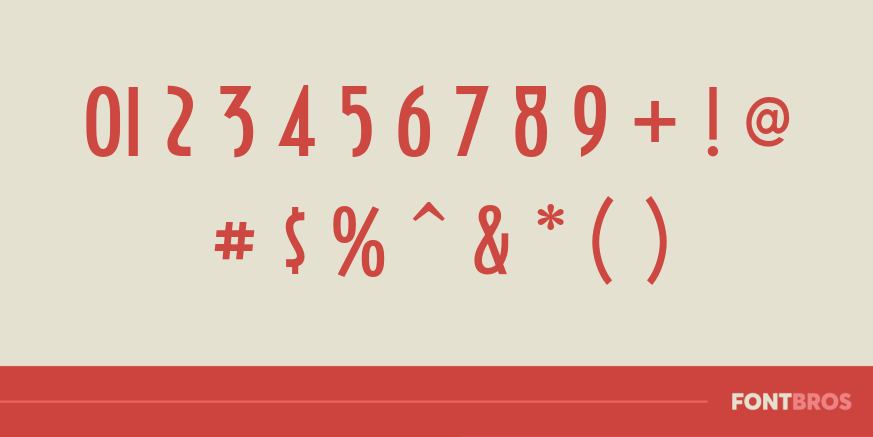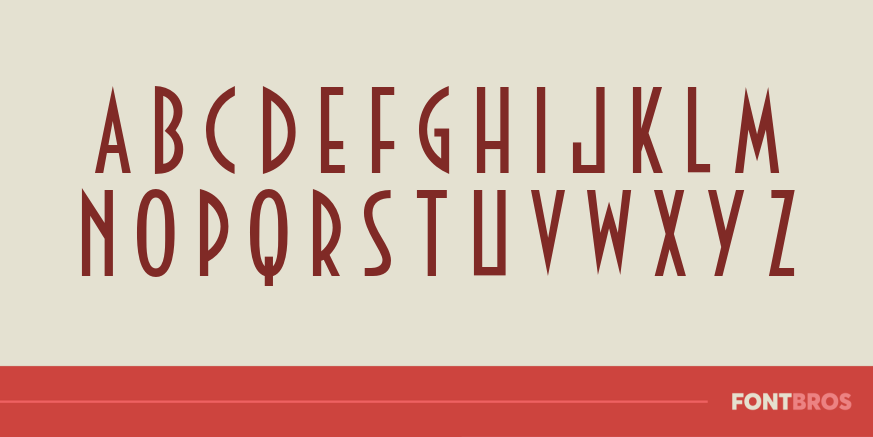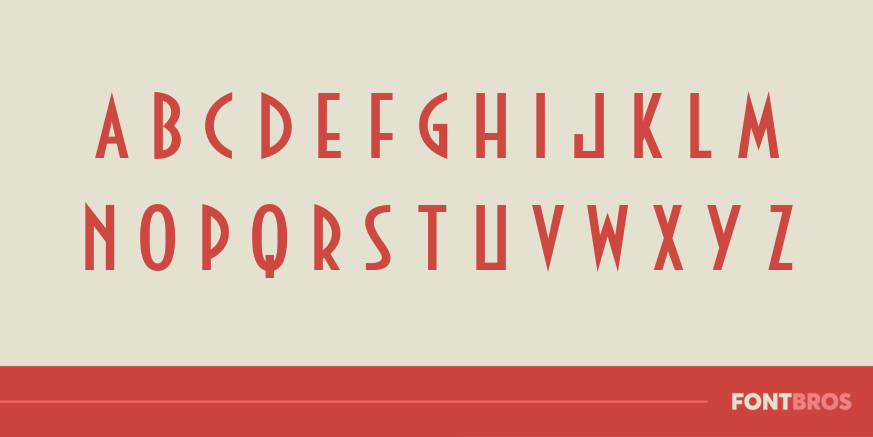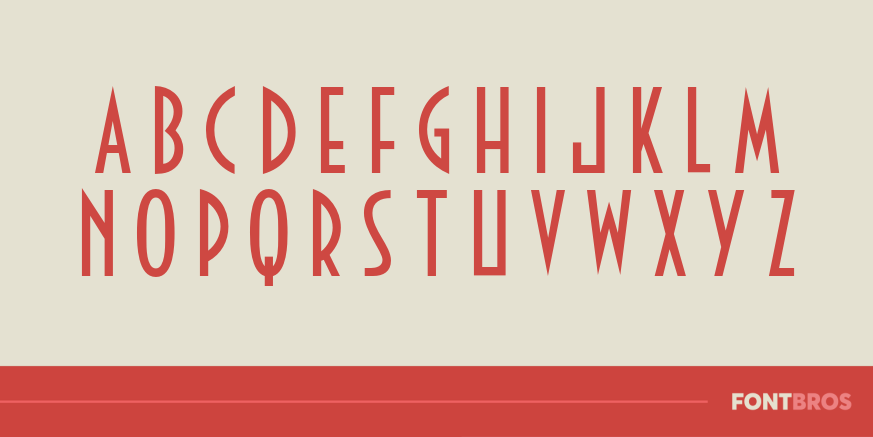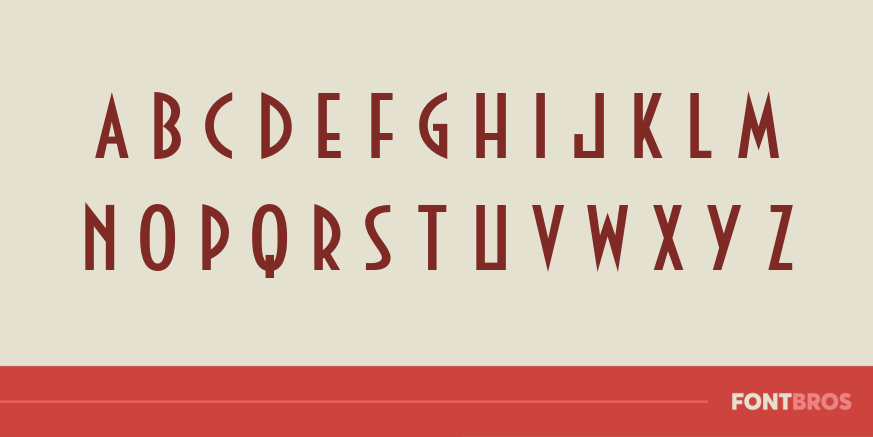
Guest Check
Font Family by Font Diner
The management kindly requests your departure with the arrival of your Guest Check! This fine Art Deco inspired font came from, you guessed it, a Guest Check!